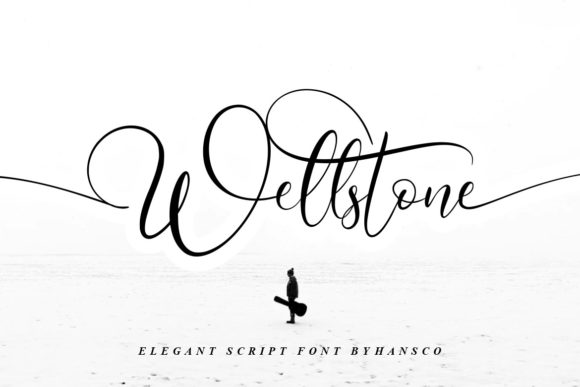
Embark on a typographic journey with Wellstone Font, a mesmerizing script font that will transport your designs to a realm of sophistication and allure. This exquisite creation by HansCo is not just a collection of letters; it's an artistic expression that captivates the senses and leaves an indelible mark on the hearts of beholders.
Wellstone Font is a symphony of flowing curves and graceful lines, a testament to the artistry of its creator. Each glyph is meticulously crafted to embody elegance and luxury, elevating your designs to new heights of visual appeal. This font is a perfect choice for those who seek a refreshing and unique touch in their creative endeavors.
Immerse yourself in the world of Wellstone Font, where your imagination knows no bounds. Whether you're crafting a signature logo that exudes timeless sophistication or designing an invitation that radiates charm, this font will effortlessly elevate your work. Its versatility extends to a wide range of projects, from branding and marketing materials to wedding invitations and social media posts.
Unleash your creativity and let Wellstone Font guide you to typographic excellence. Its PUA encoding ensures effortless access to a treasure trove of glyphs and swashes, empowering you to add intricate details and flourishes to your designs. With Wellstone Font, the possibilities are endless, and your designs will undoubtedly leave a lasting impression.
Indulge in the beauty of Wellstone Font and elevate your designs to the pinnacle of elegance and luxury. Experience the transformative power of typography and unlock a world of endless creative possibilities. Embrace the allure of Wellstone Font today and let your designs shine brighter than ever before.